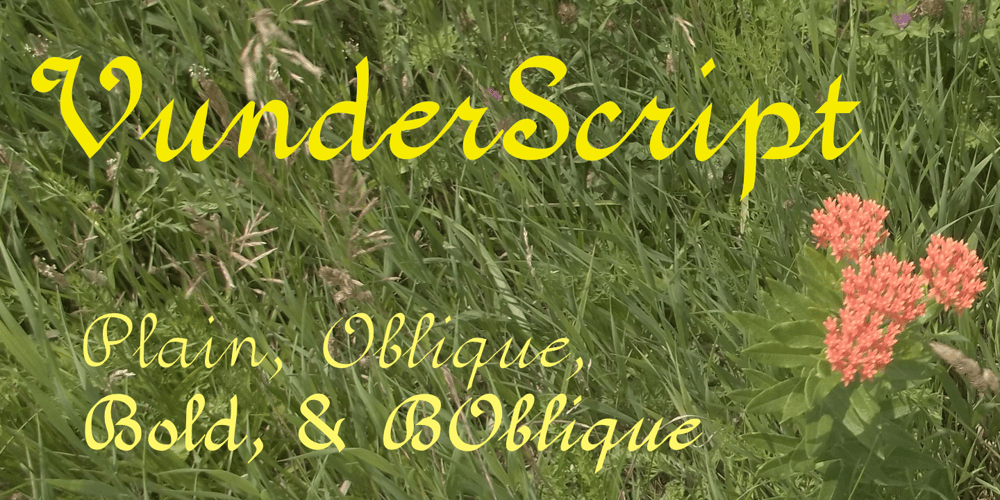
Vunder Script Font Family was designed by Robert Schenk and published by Ingrimayne Type. Vunder Script contains 4 styles and family package options. Vunderscript is a calligraphic script with upper-case letters that have blackletter touches. It is available in two weights, plain and bold, each with an obilque style.